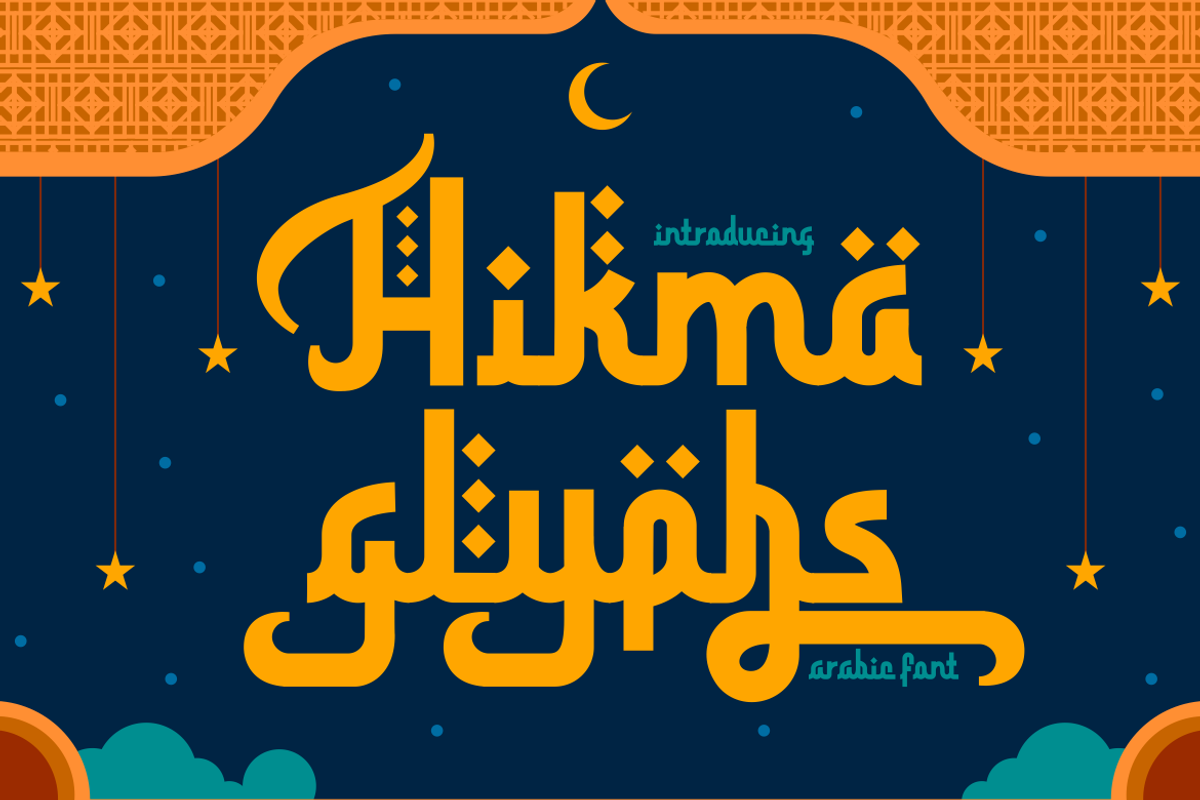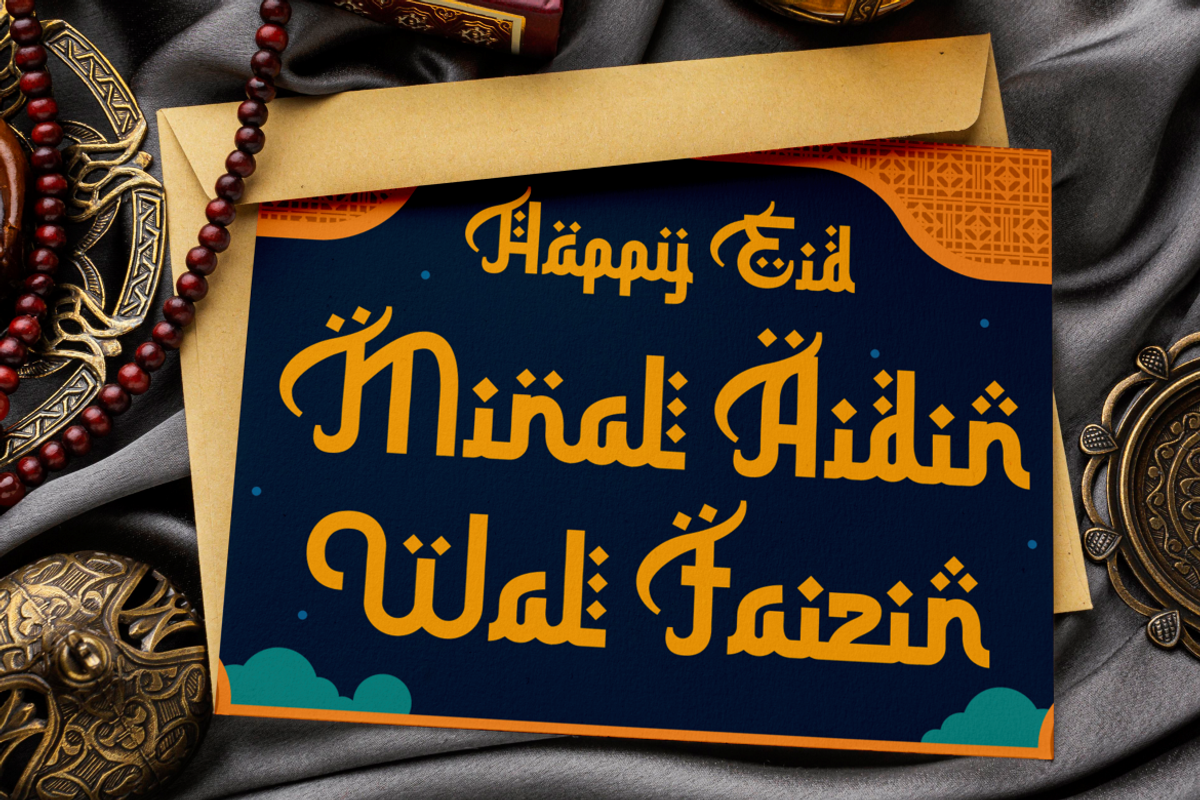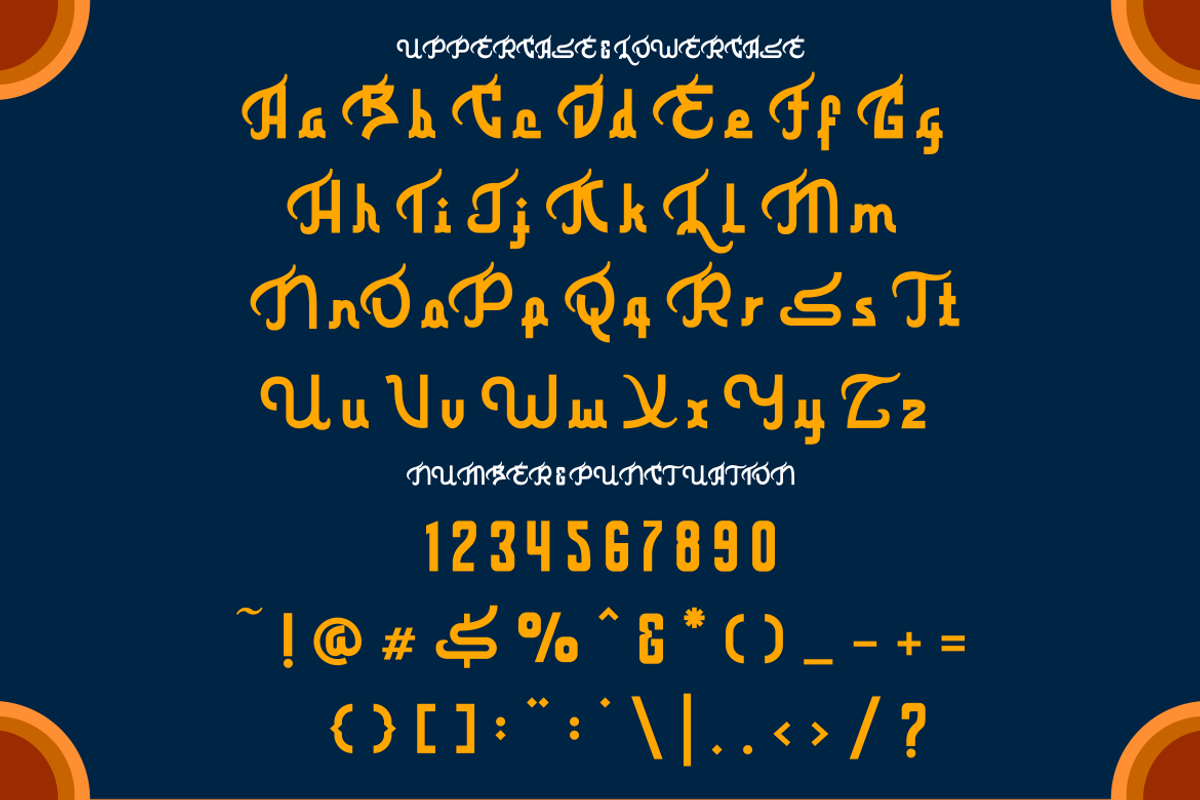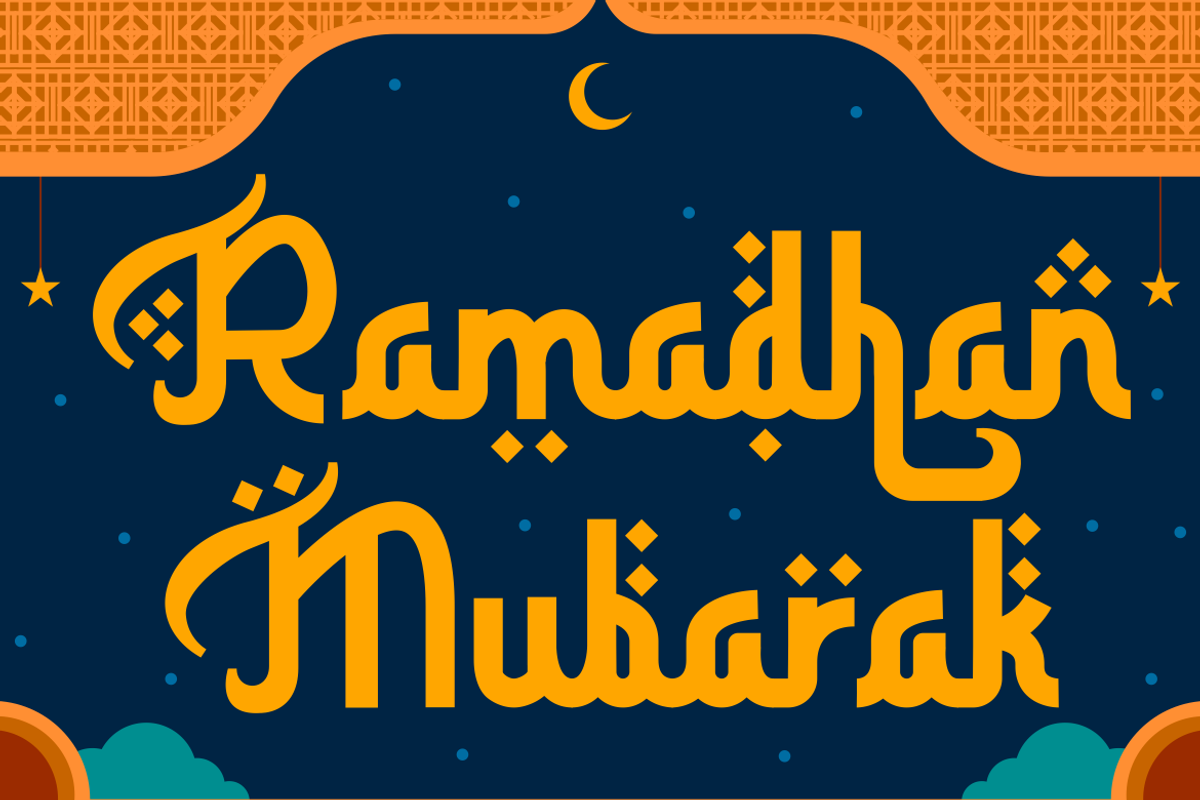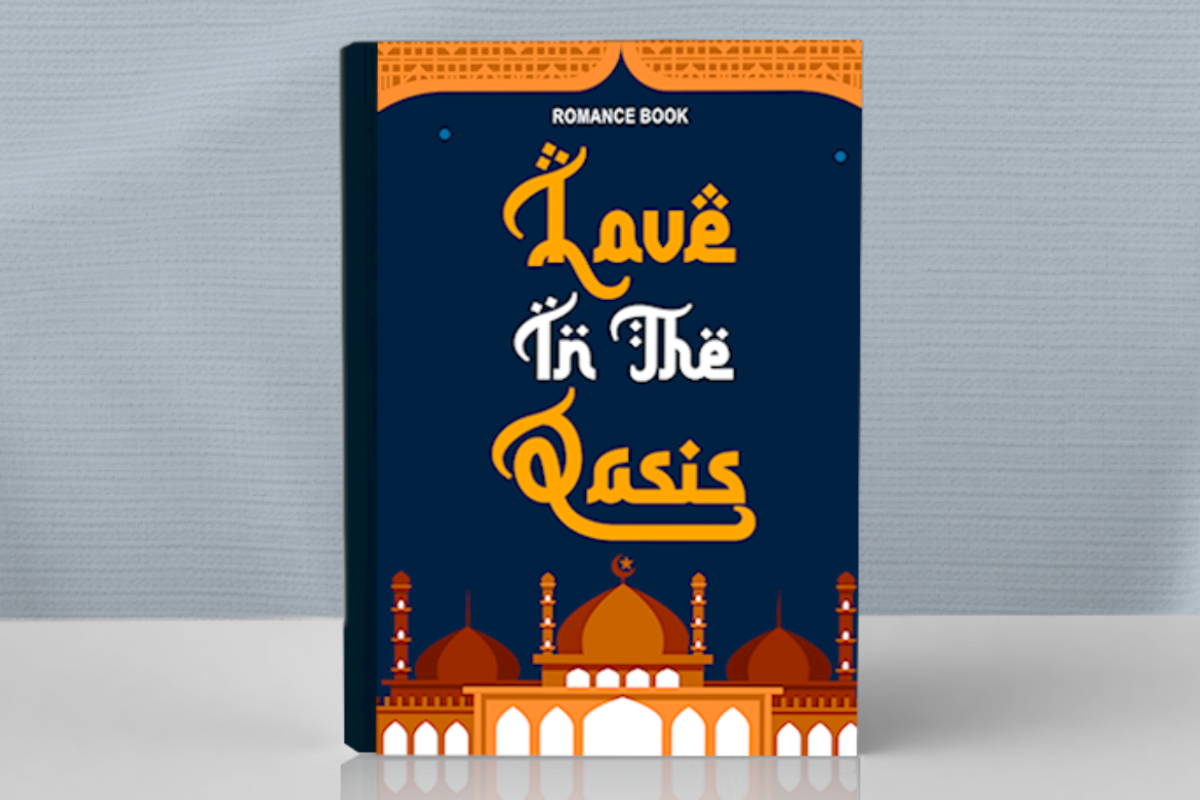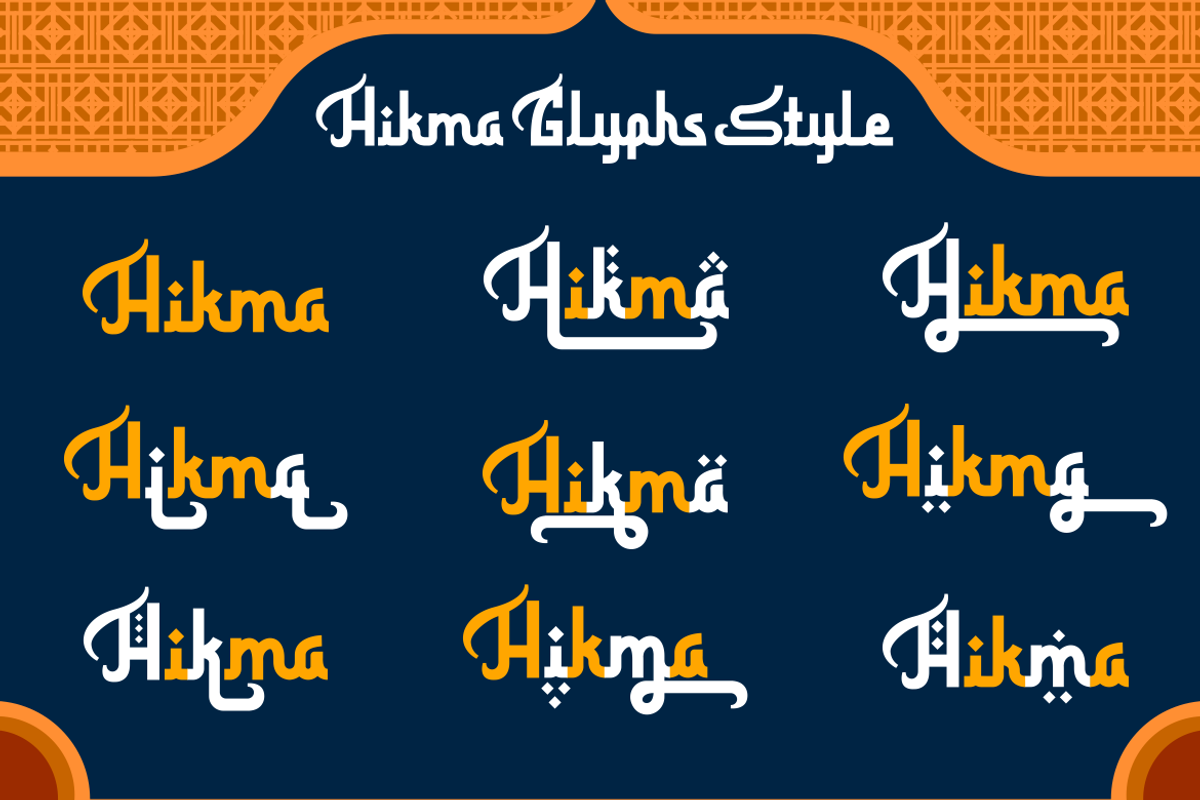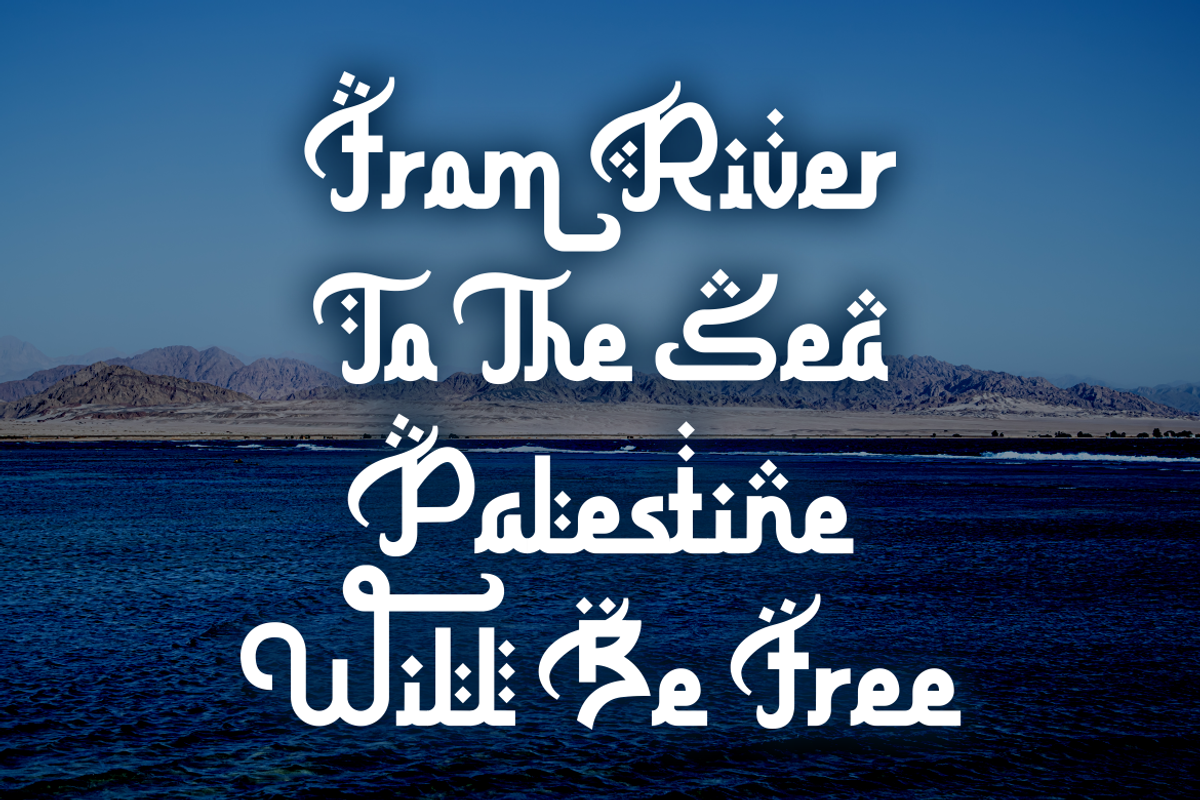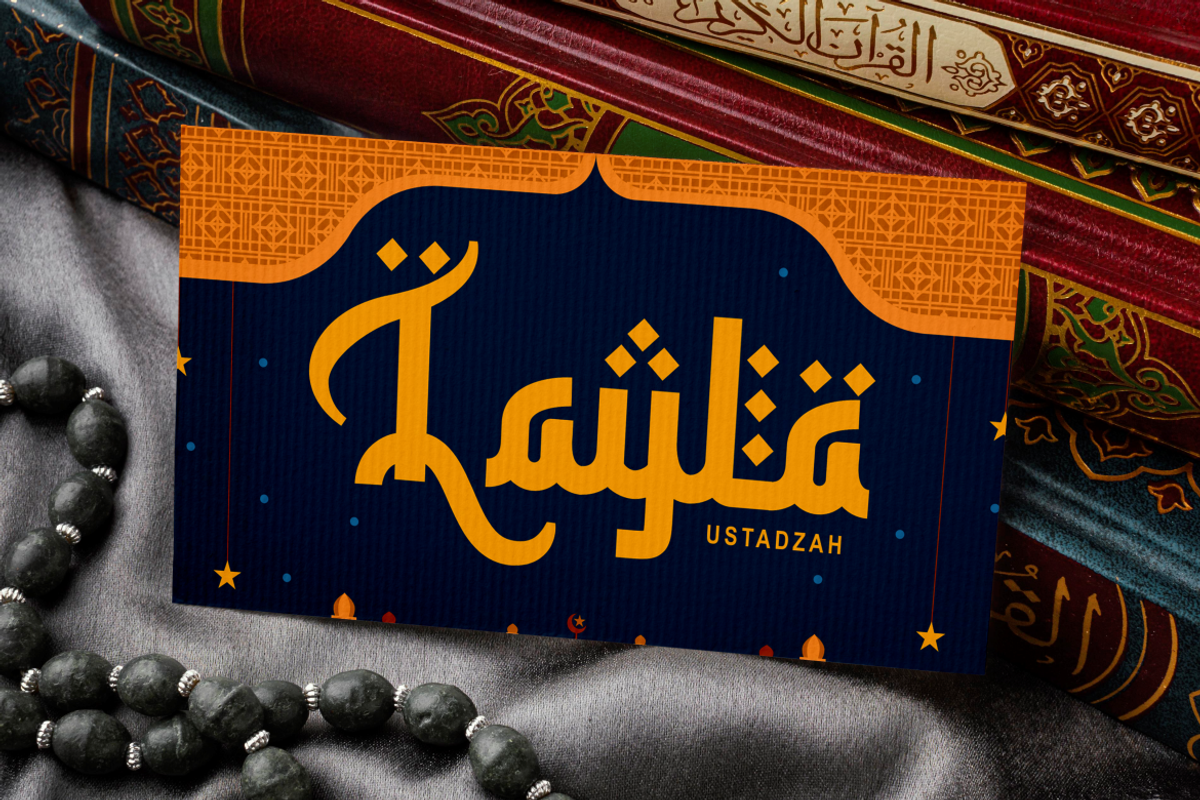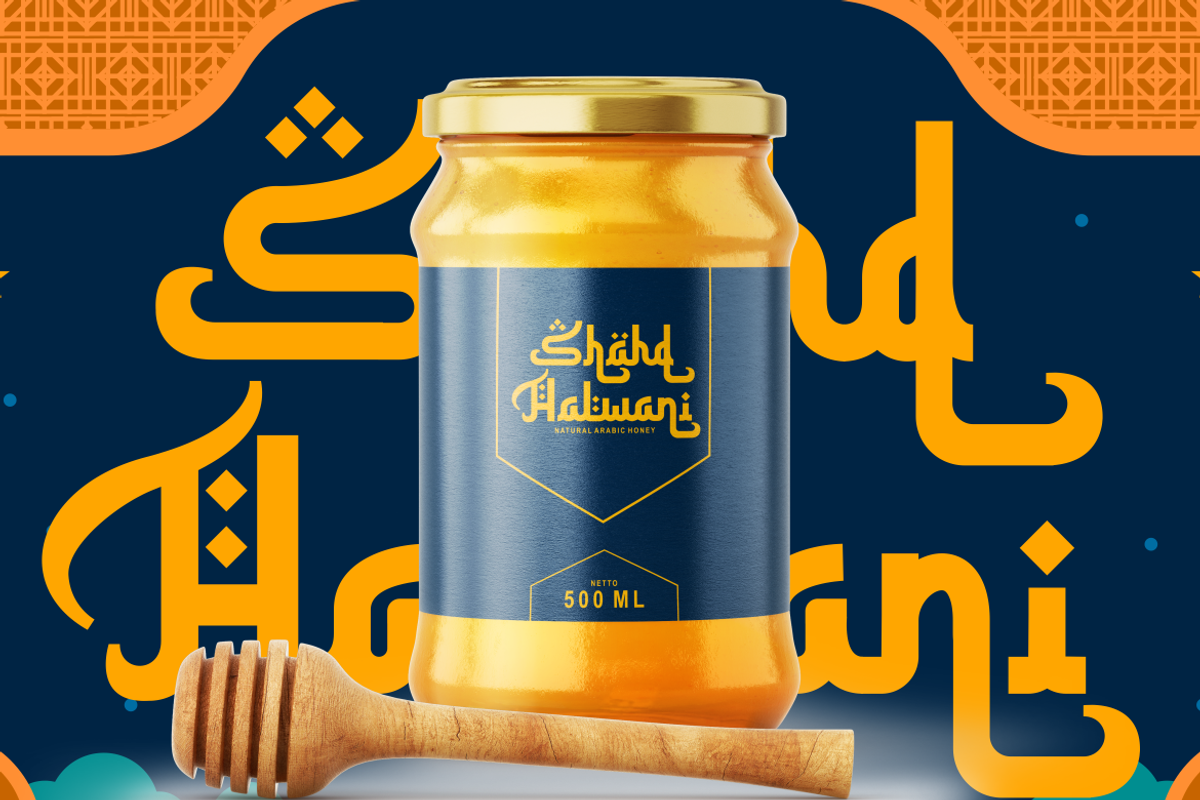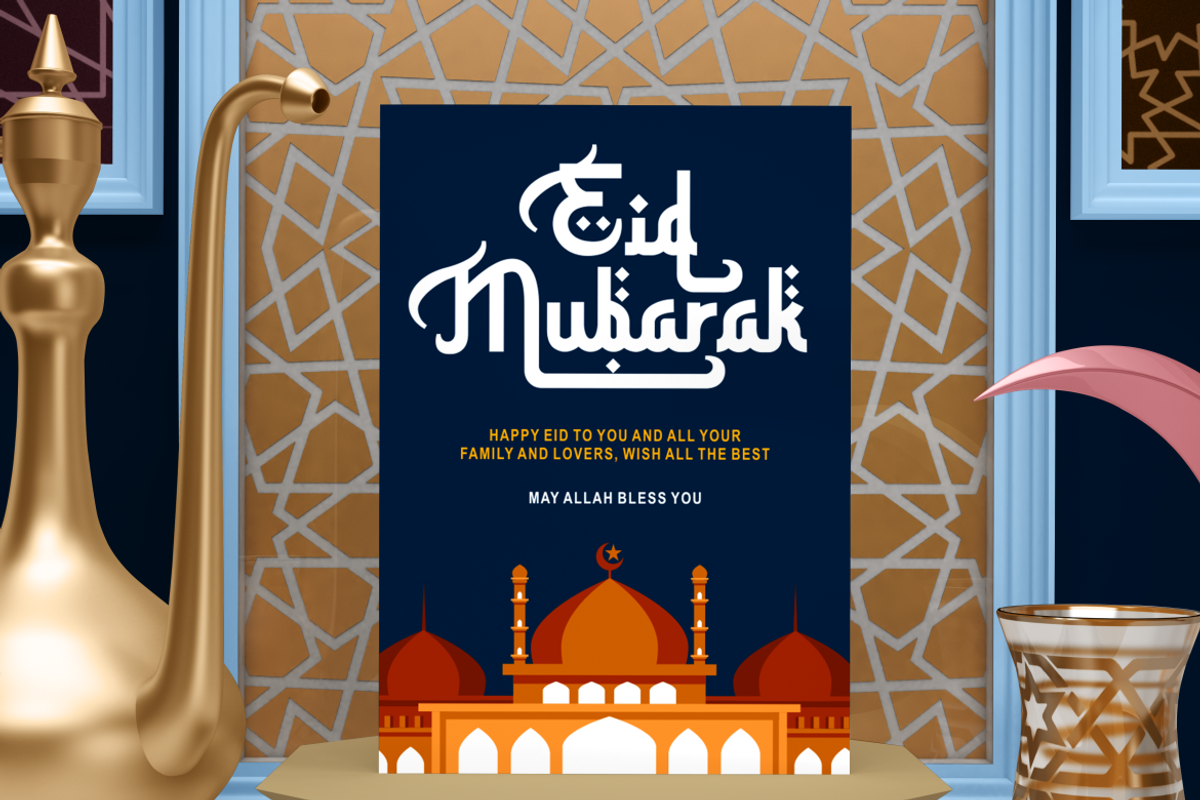
Hikma Glyphs - Arabic Style Font
Hikma Glyphs is an Arabic style font that marries the intricate artistry of Arabic calligraphy with contemporary design aesthetics. This font is characterized by its display, quirky, and playful nature, making it a perfect choice for a wide range of creative projects. Each glyph is crafted with precision, echoing the fluidity and grace of traditional Arabic writing while infusing a modern touch to cater to the current design trends.
The versatility of Hikma Glyphs lies in its alternate letter variations, allowing designers to experiment and customize their creations. It’s not just a font but an artistic tool endowed with different styles that can stand alone or blend seamlessly to bring your designs to life. Ideal for logos, branding, children’s themes, crafting, invitations, packaging, posters titles business cards greetings cards stickers children’s books magazines and other designs aligning with its thematic essence.